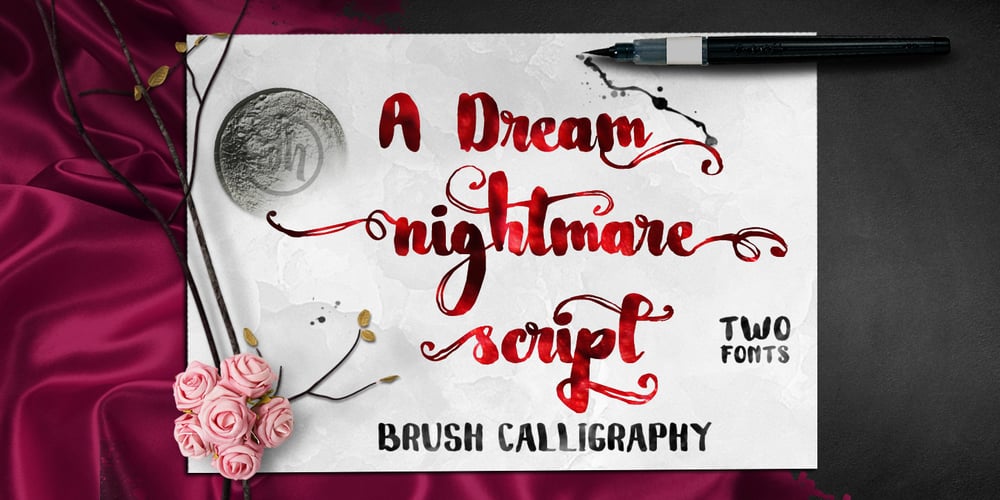
Dream Nightmare Font Family was designed by Ferry Hadriyan and published by FHFont. Dream Nightmare contains 2 styles and family package options. This is a hand-drawn brush Font a modern Vintage Calligraphy style, Suitable for design, element design, weddings, events, t-shirts, logos, badges, stickers, and awesome work.